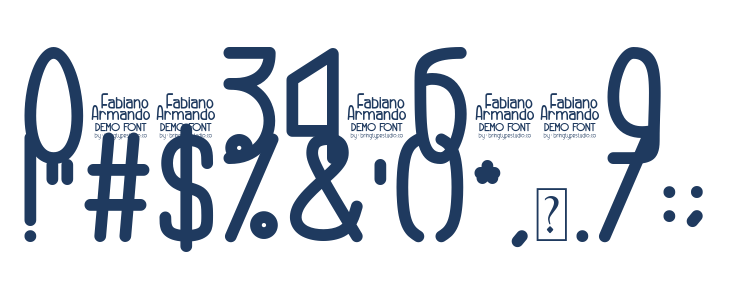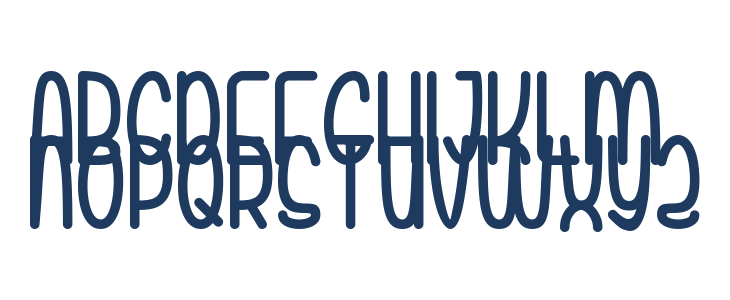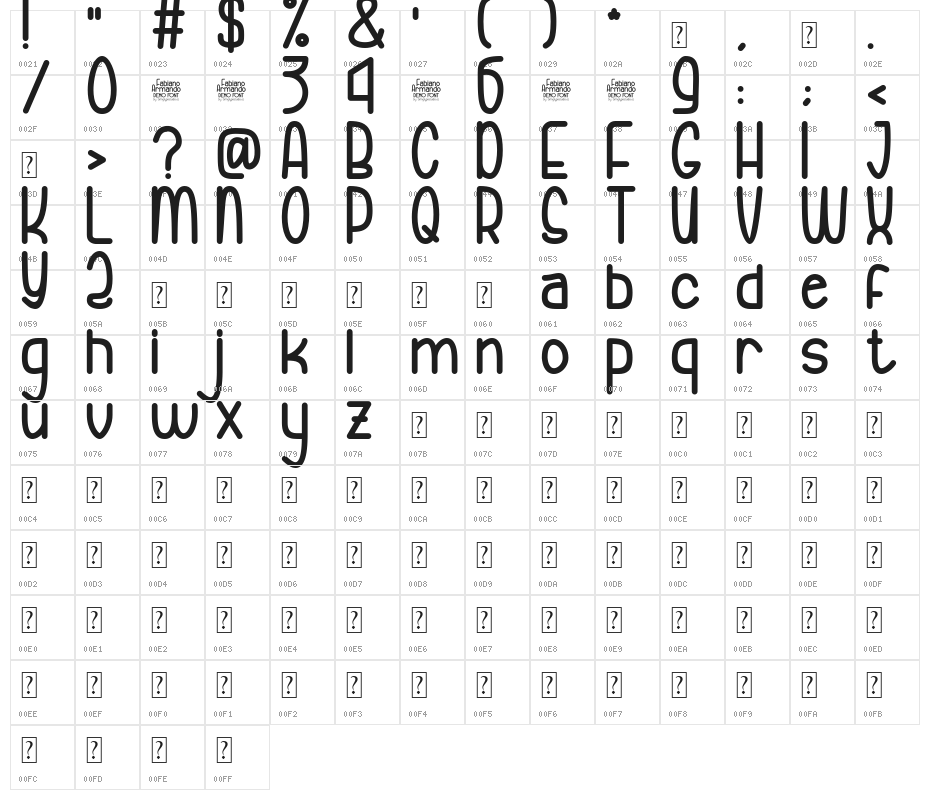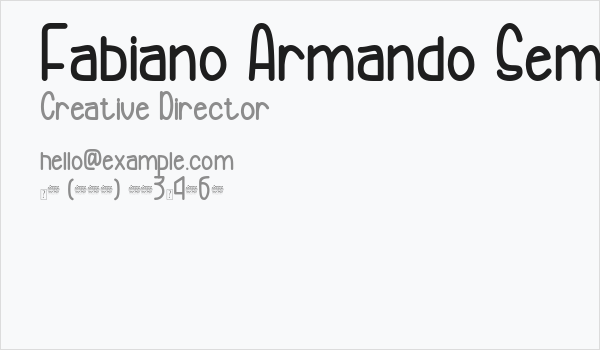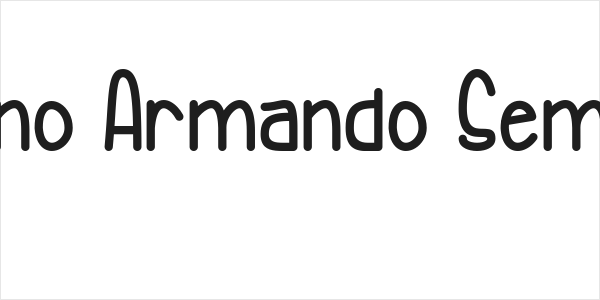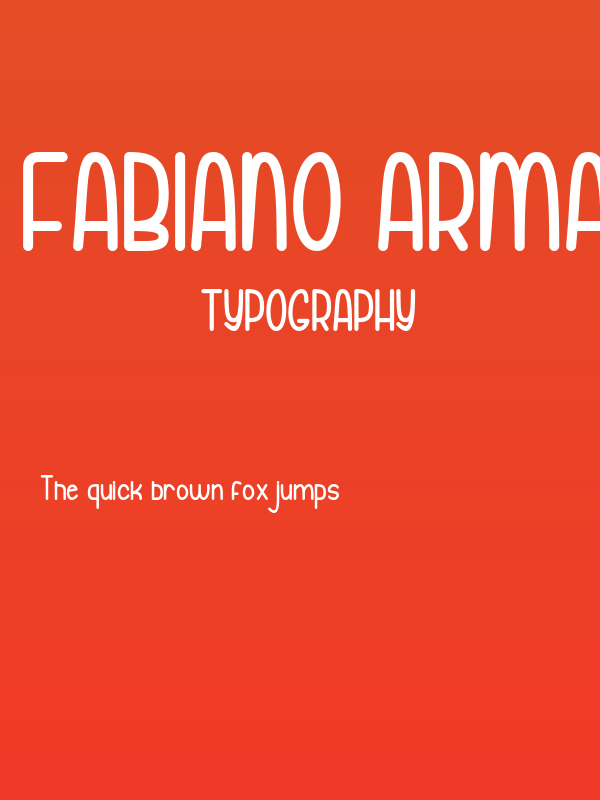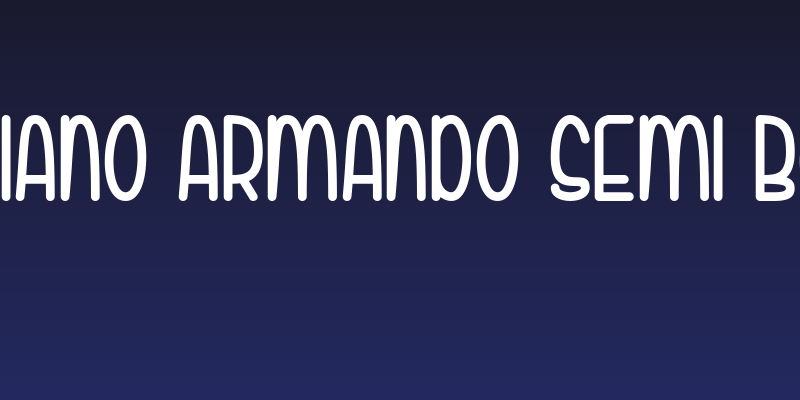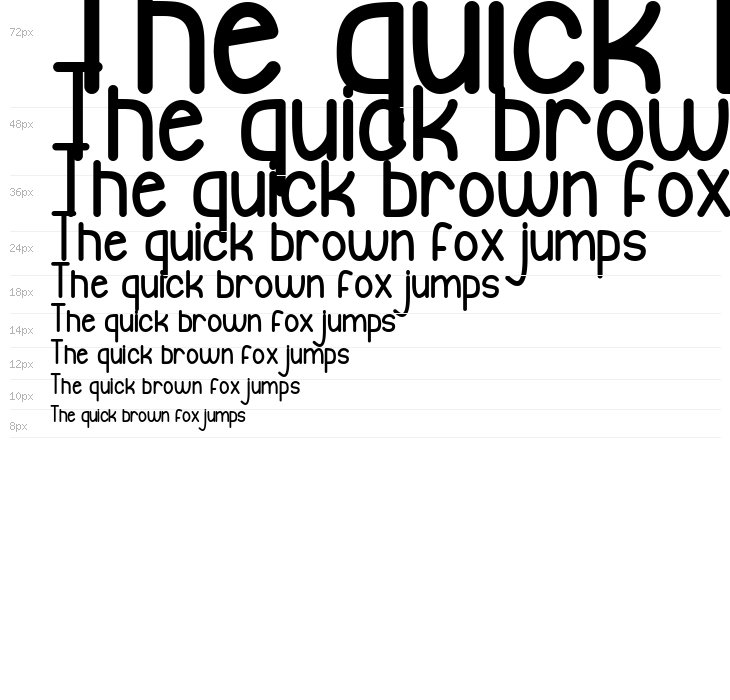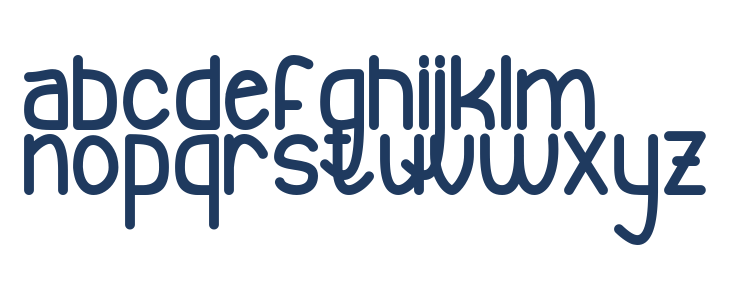
Fabiano Armando Semi Bold Font
Fabiano Armando Semi Bold Description
A rounded, semi-bold sans-serif font with playful, slightly condensed letterforms and consistent stroke thickness. The characters have a friendly, informal appearance with open counters and smooth curves.
| Overall Style | Playful, Modern, Informal |
| Use Case | Headlines, Logos, Posters, Packaging |
| Proposed Projects | Children's books, posters, branding for casual products, educational materials, packaging, social media graphics. |